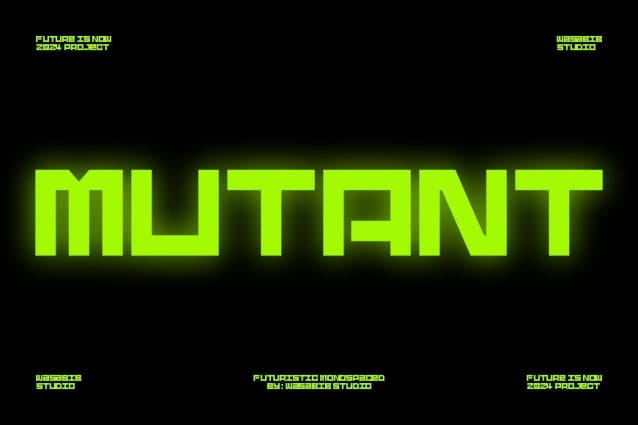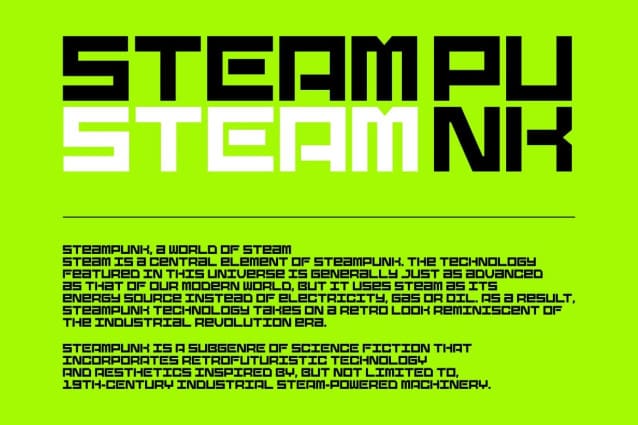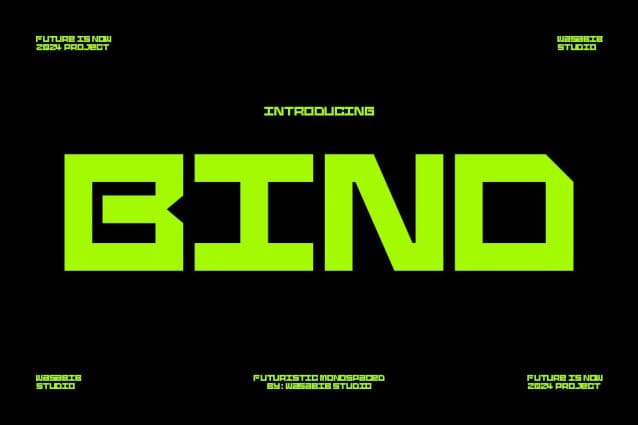
WS Bind Font
WS Bind Font, this font style has a technical, futuristic look that lends itself well to modern design applications. Its sharp angles and straight lines give it a forward-looking, geometric feel typically associated with technology, science and engineering.